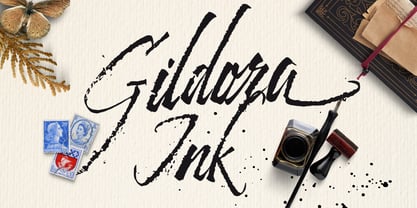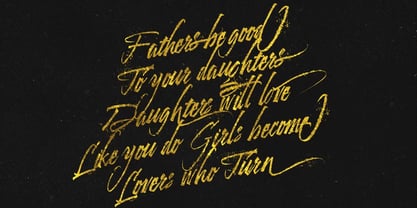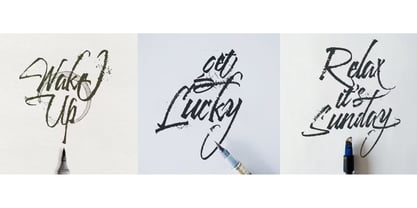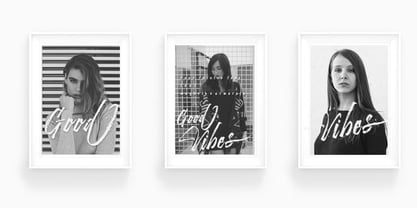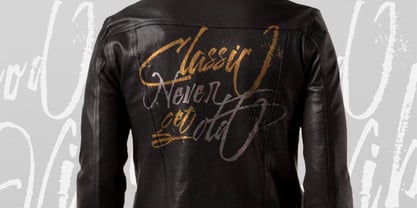
Gildora Ink
by Maghrib Type
The Gildora Ink Font Family was designed by Rizky Setyaludin and published by Maghrib Type. Gildora Ink contains 2 styles.
Gildora Ink is a bold brush script font that bursts with energy, combining thick and thin strokes with authentic, hand-painted texture. Each letter feels alive—like it’s been freshly brushed onto the canvas—bringing an expressive and artistic touch to your designs.
Perfect for projects that call for a personal yet daring look, from music posters, creative branding, product packaging, and motivational quotes to social media graphics. With smooth-flowing ligatures and dynamic brush strokes, Gildora Ink delivers warmth and boldness in one stylish typeface.
If you’re looking for a font that radiates spontaneity, style, and vibrant spirit, Good Vibes will bring your creative vision to life